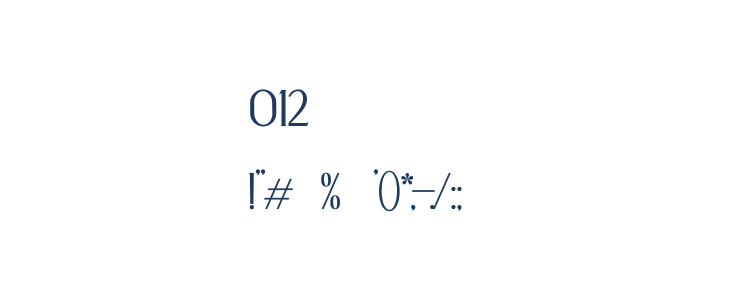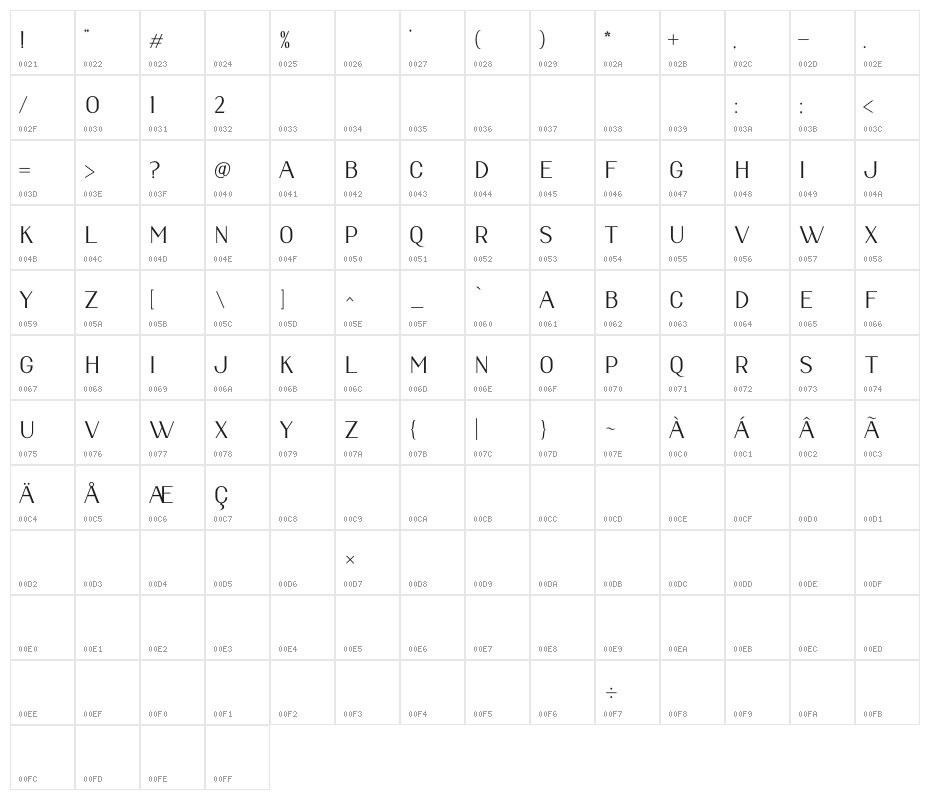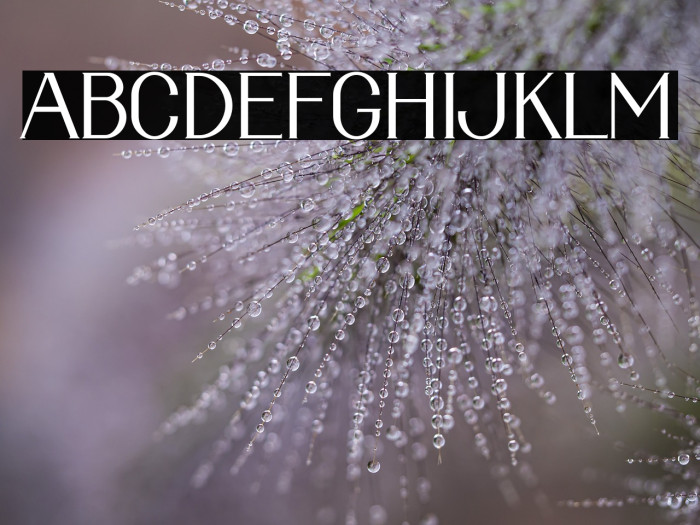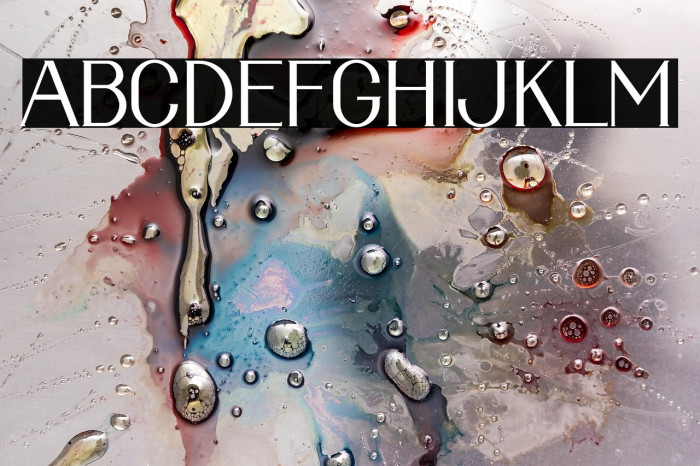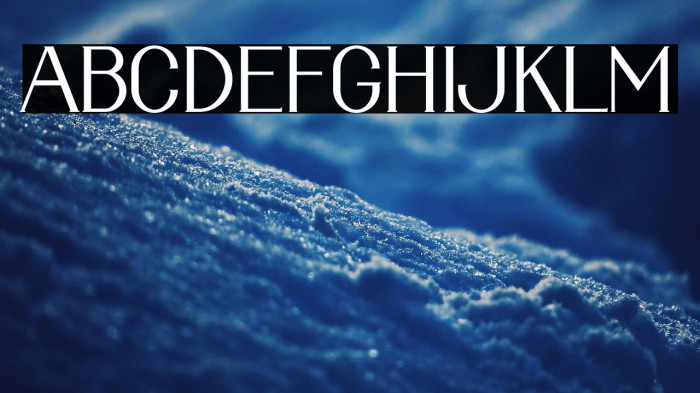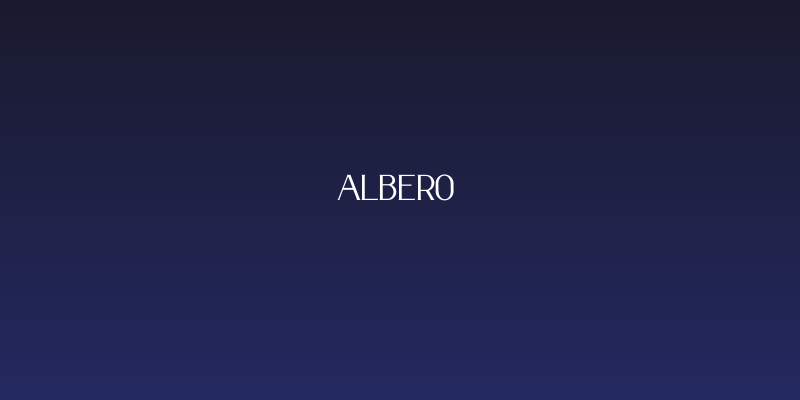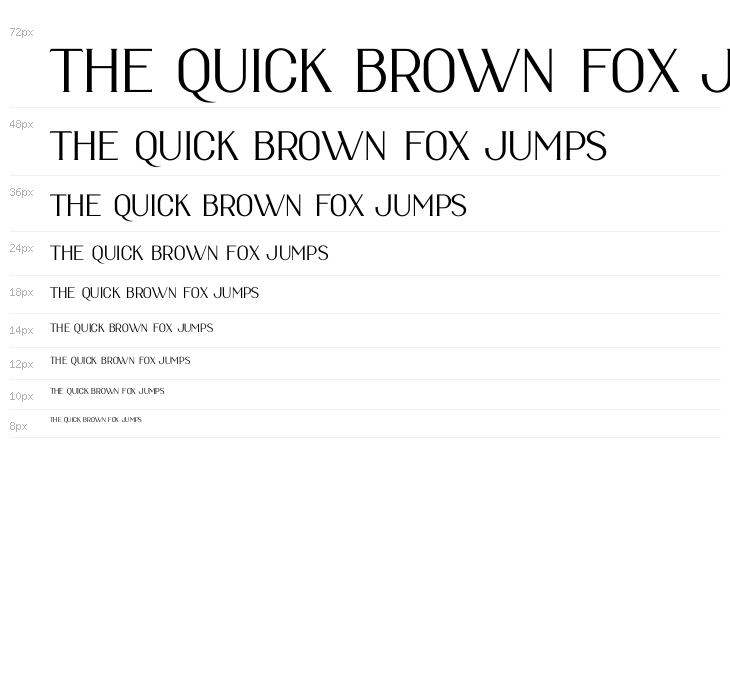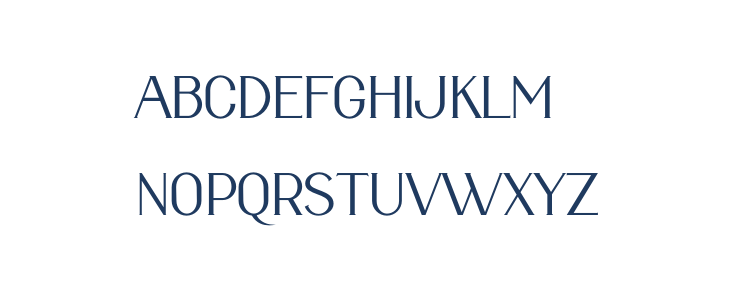
ALBERO Font
ALBERO Description
This font features a modern and elegant serif style with a refined and sophisticated appearance. The uppercase letters are characterized by clean lines and subtle curves, giving them a sleek and contemporary look. The lowercase letters maintain a consistent style, complementing the uppercase with their balanced proportions. The numerals are clear and legible, making them suitable for various applications. Special characters are thoughtfully designed to match the overall aesthetic, ensuring a cohesive visual experience. The font's design is versatile, making it suitable for both digital and print media.
| Use Case | Headlines, Body text, Logos |
| Proposed Projects | Ideal for branding, editorial design, book covers, and high-end product packaging. |